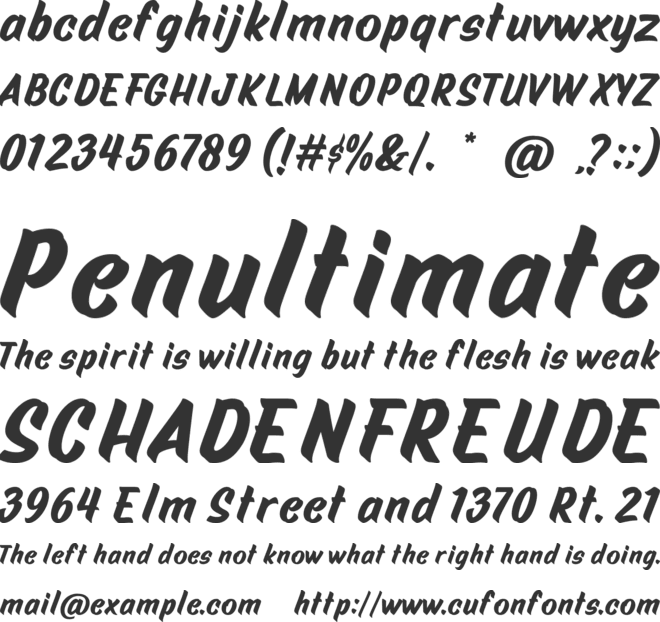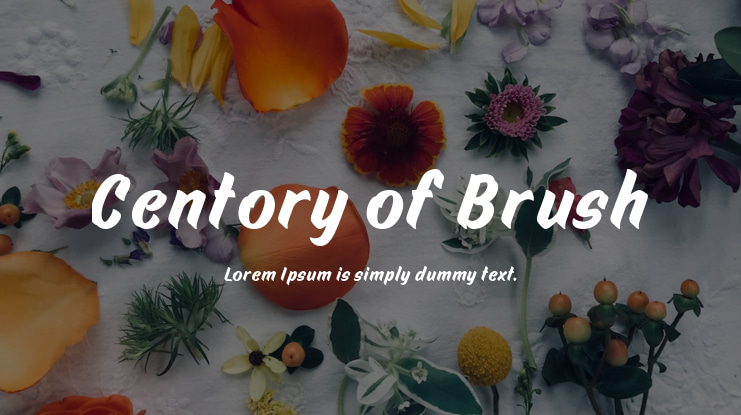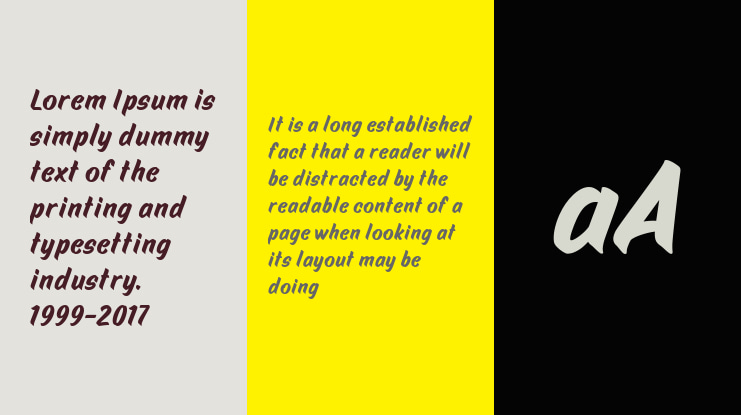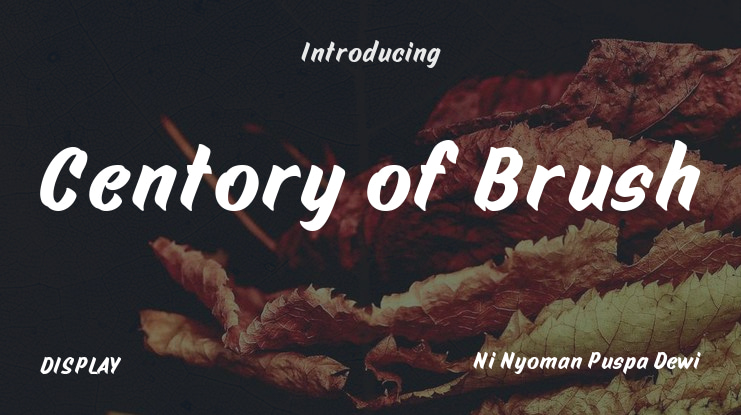
Centory of Brush Font
Ni Nyoman Puspa Dewi
Century of Brush Font
Embrace the timeless charm of vintage style with the Century of Brush Font. This masterfully crafted, smooth-brush typeface brings a touch of sophistication to any project. Inspired by the grace of classic handwritten scripts, it offers an authentic sense of nostalgia while maintaining modern functionality.